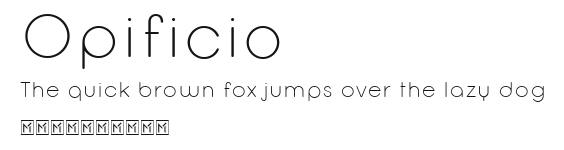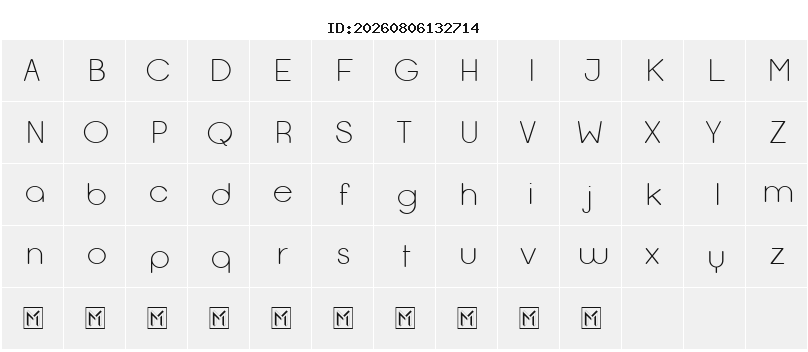
Opificio Preview
• Font Name: Opificio
• Font Style: Light-Rounded
• Font ID: Monocromos.n.c.: Opificio Light-Rounded: 2011
• Full Font Name: Opificio Light-Rounded
• PostScript Name: Opificio-LightRounded
• Designer: Andrea Cerboneschi for Monocromo
• Manufacturer: Monocromo s.n.c.
About Opificio.ttf
Opificio.ttf is a modern, elegant sans-serif font designed for ultimate readability and visual harmony. Perfect for branding, headlines, web design, and print materials.